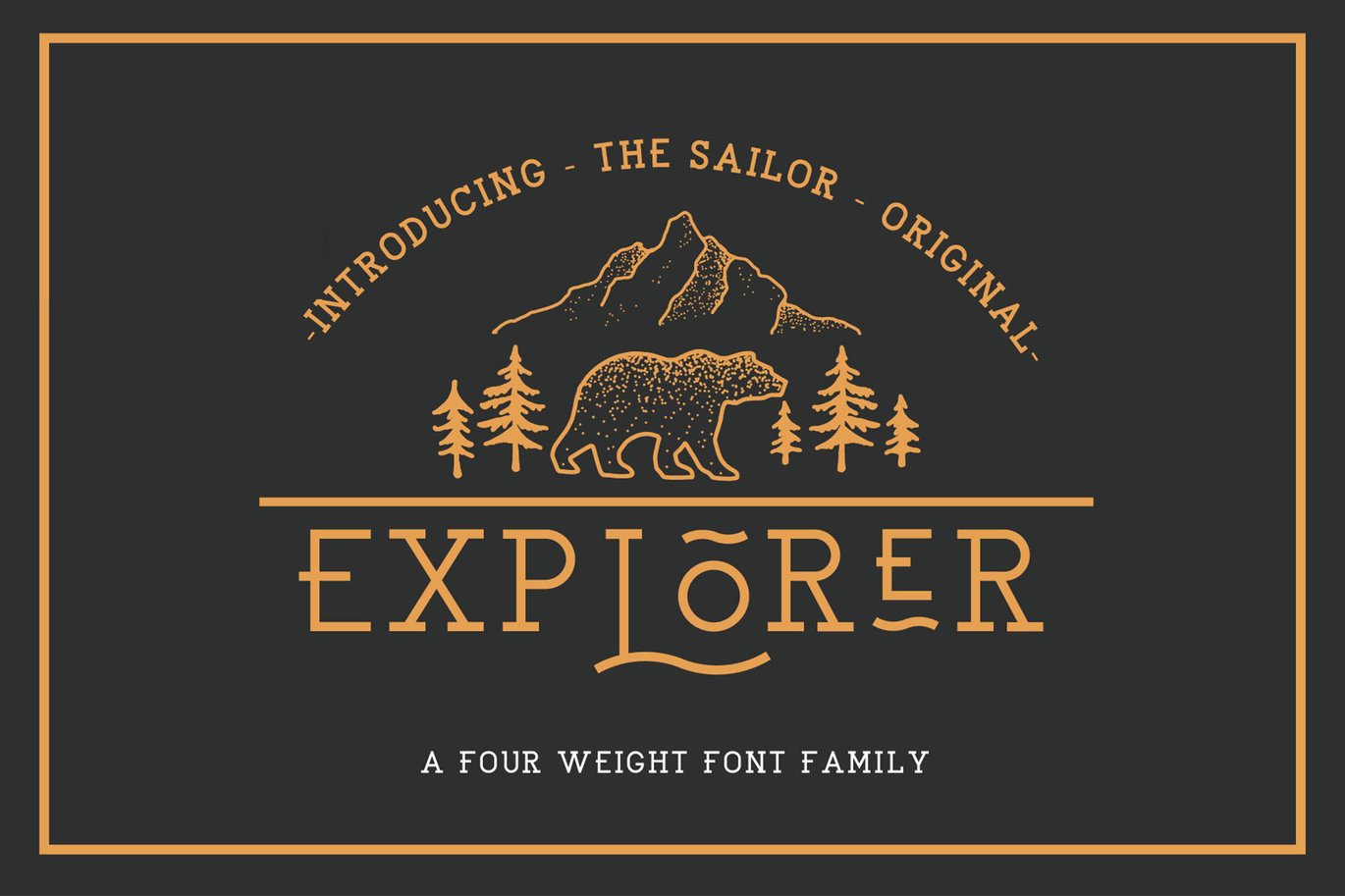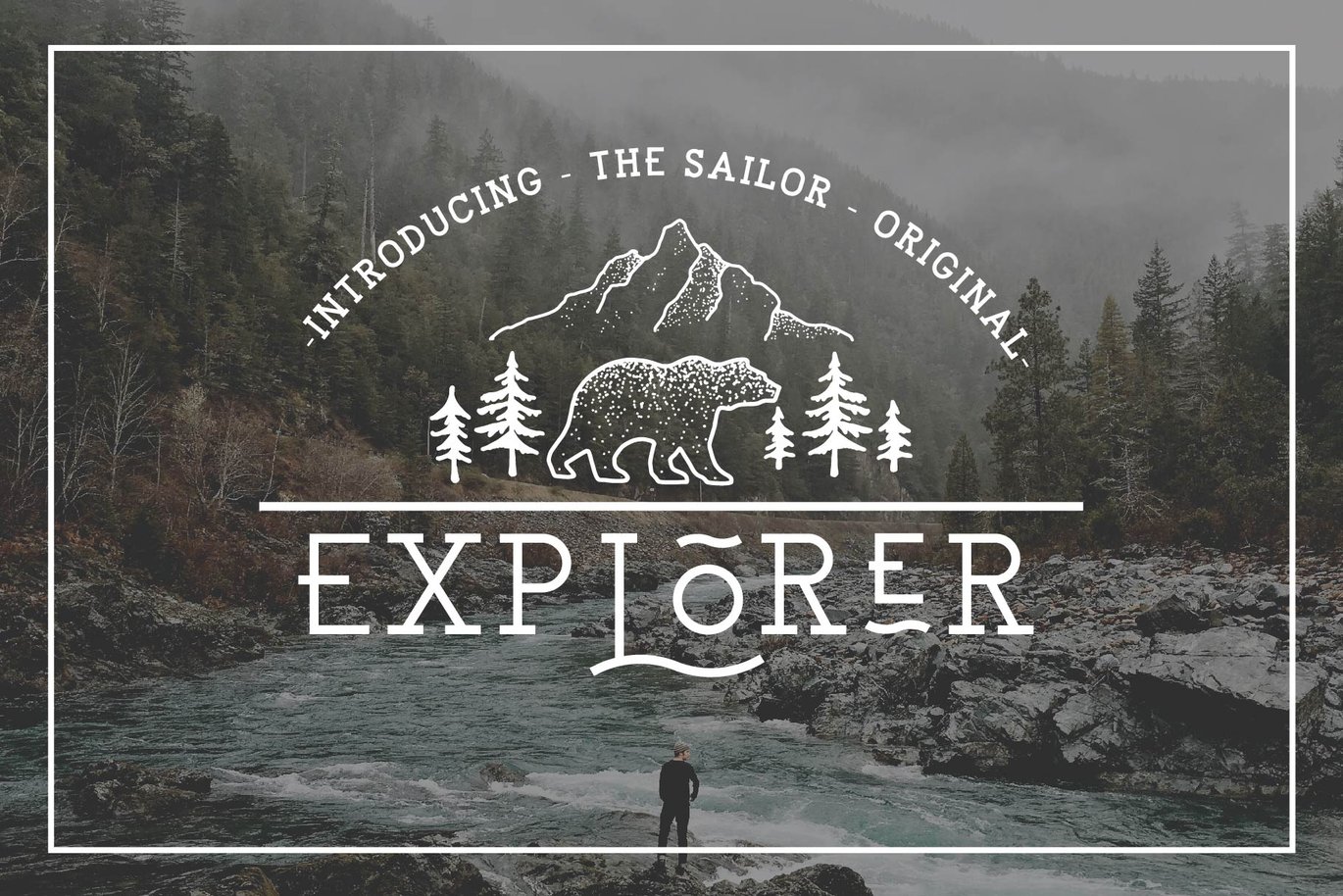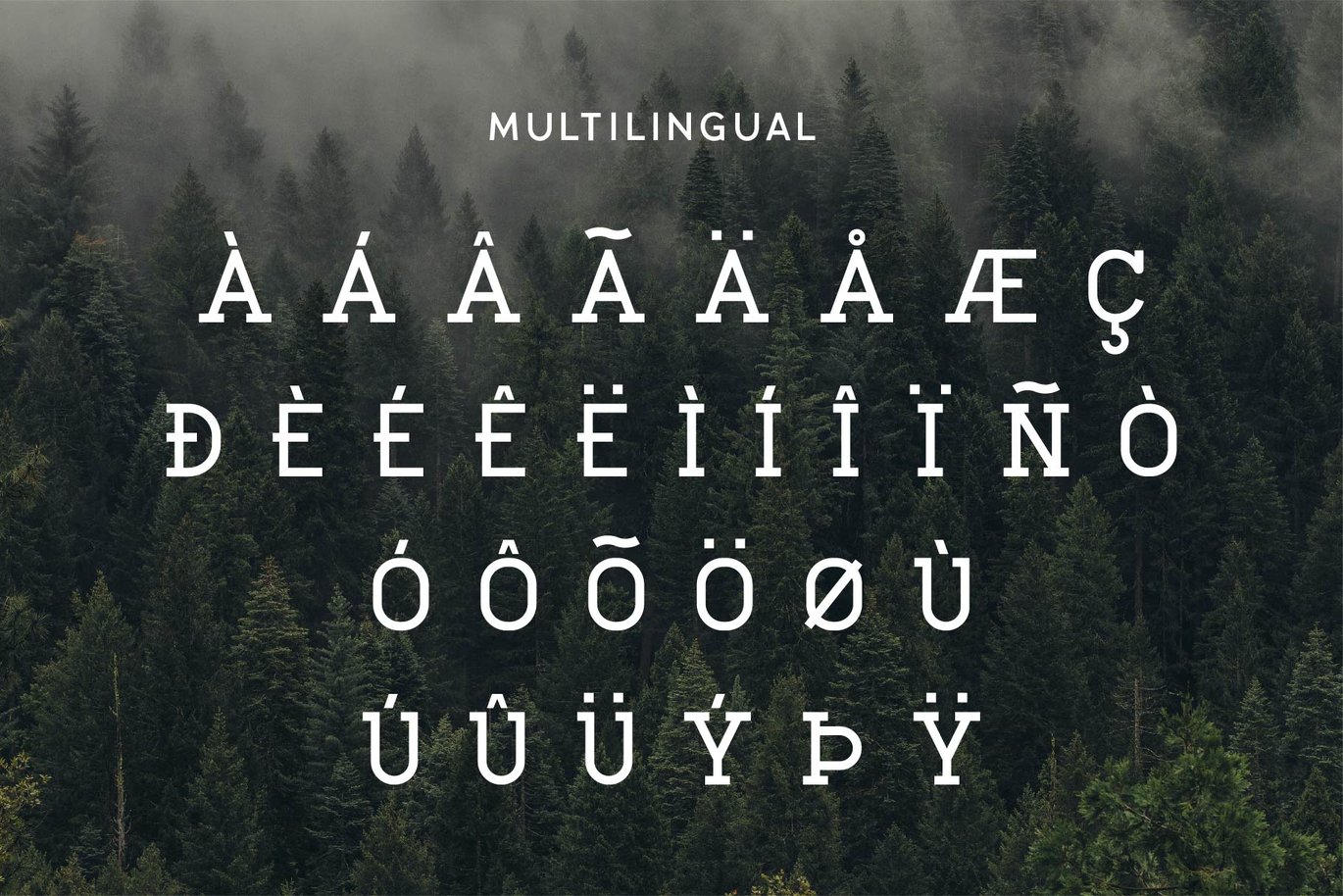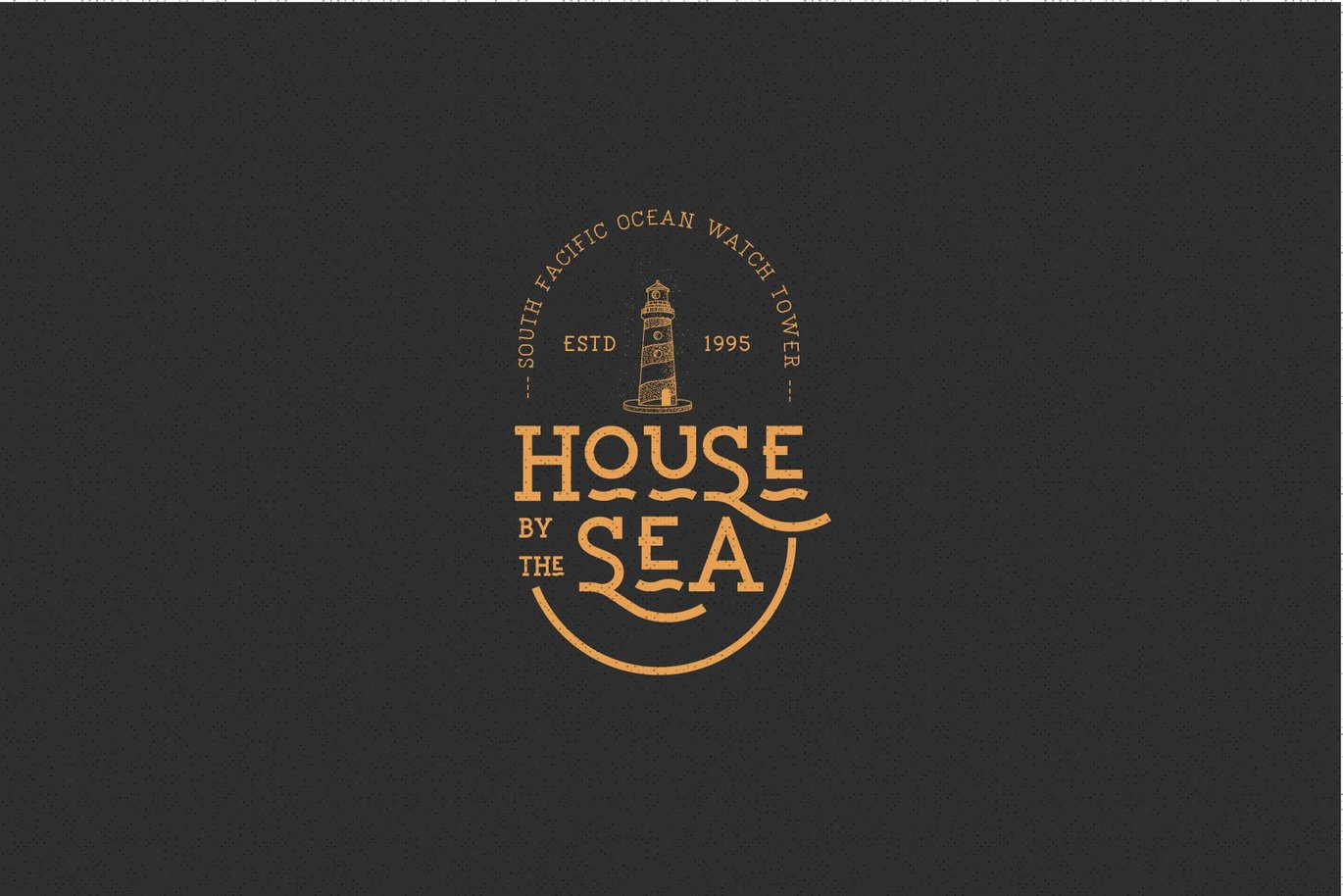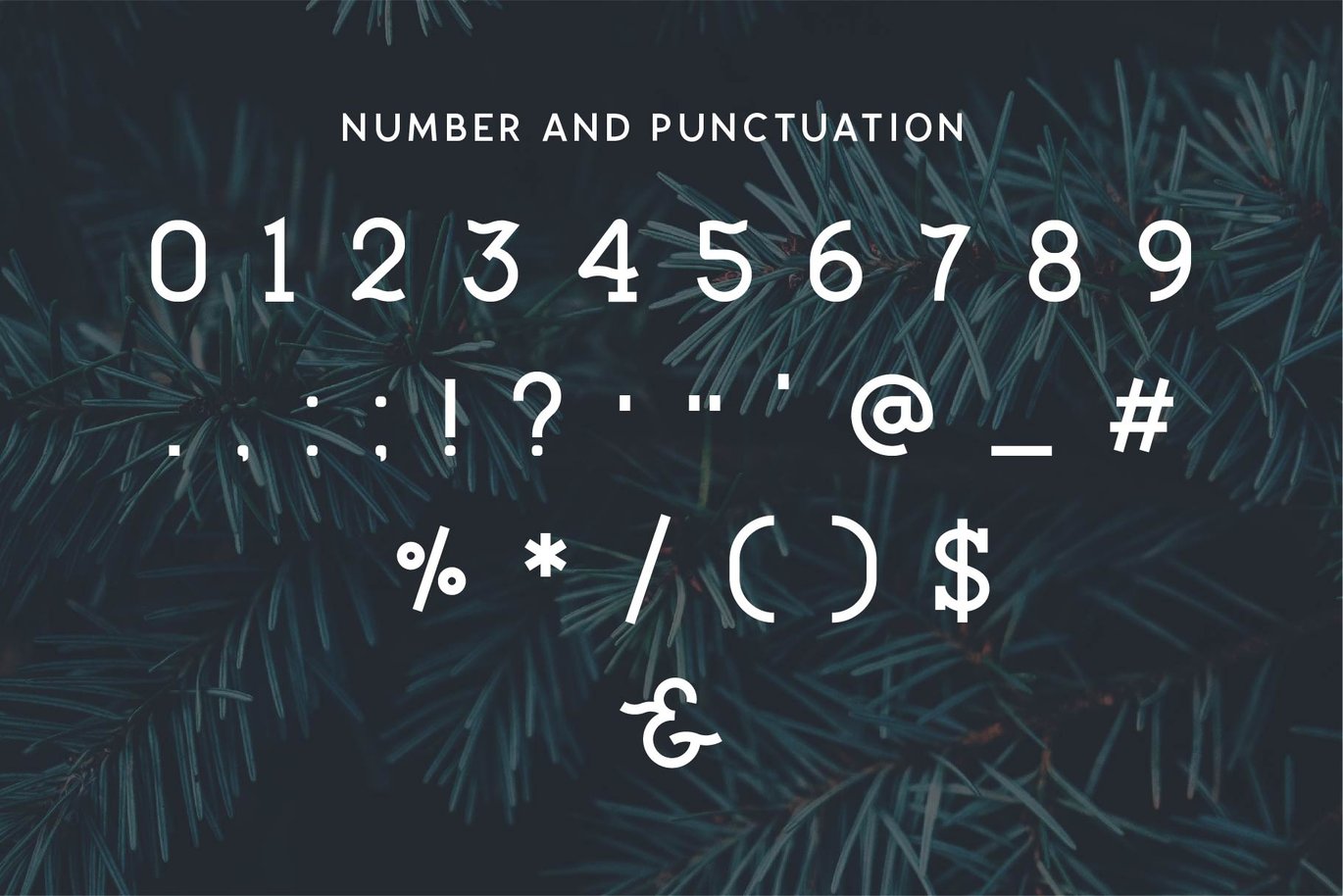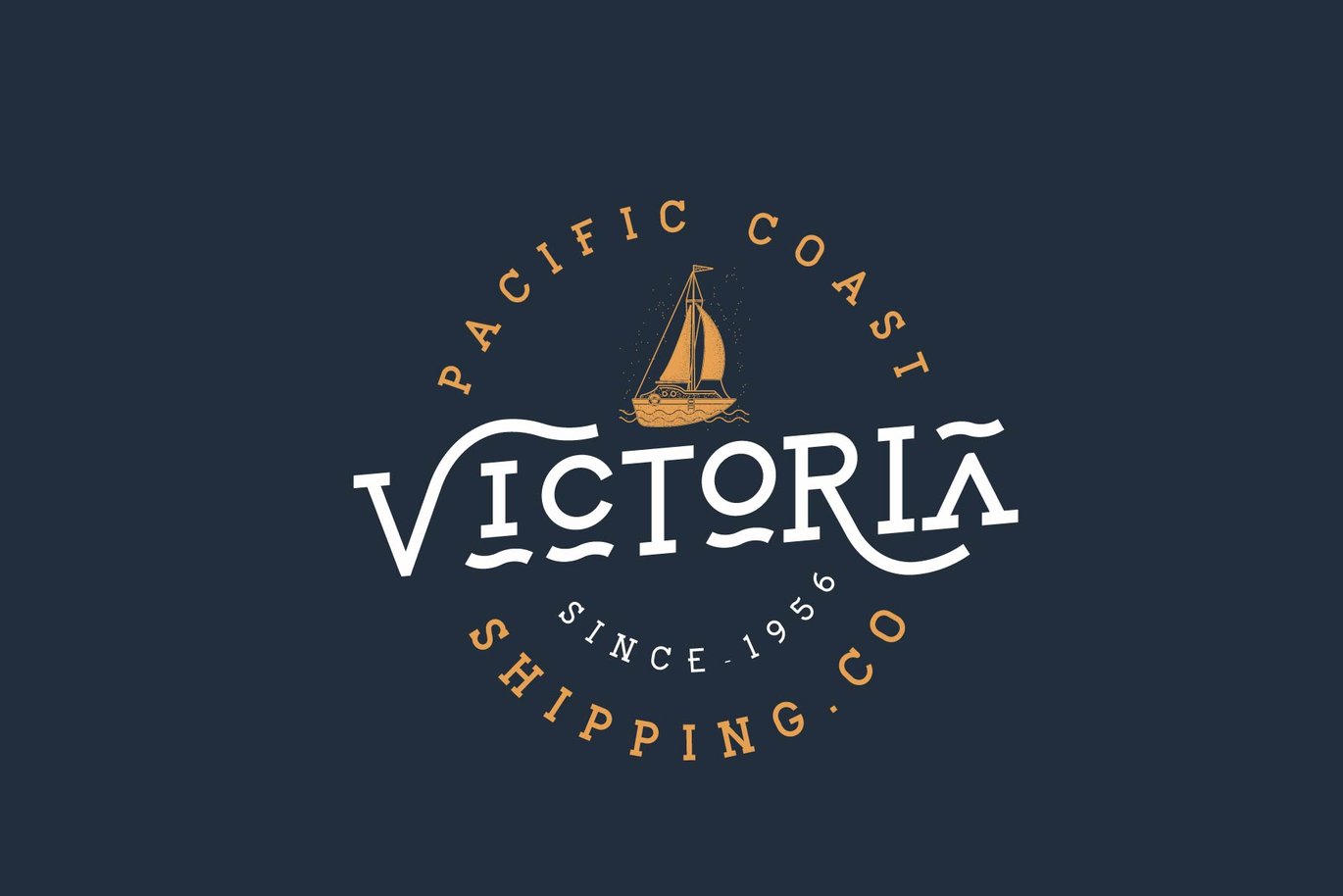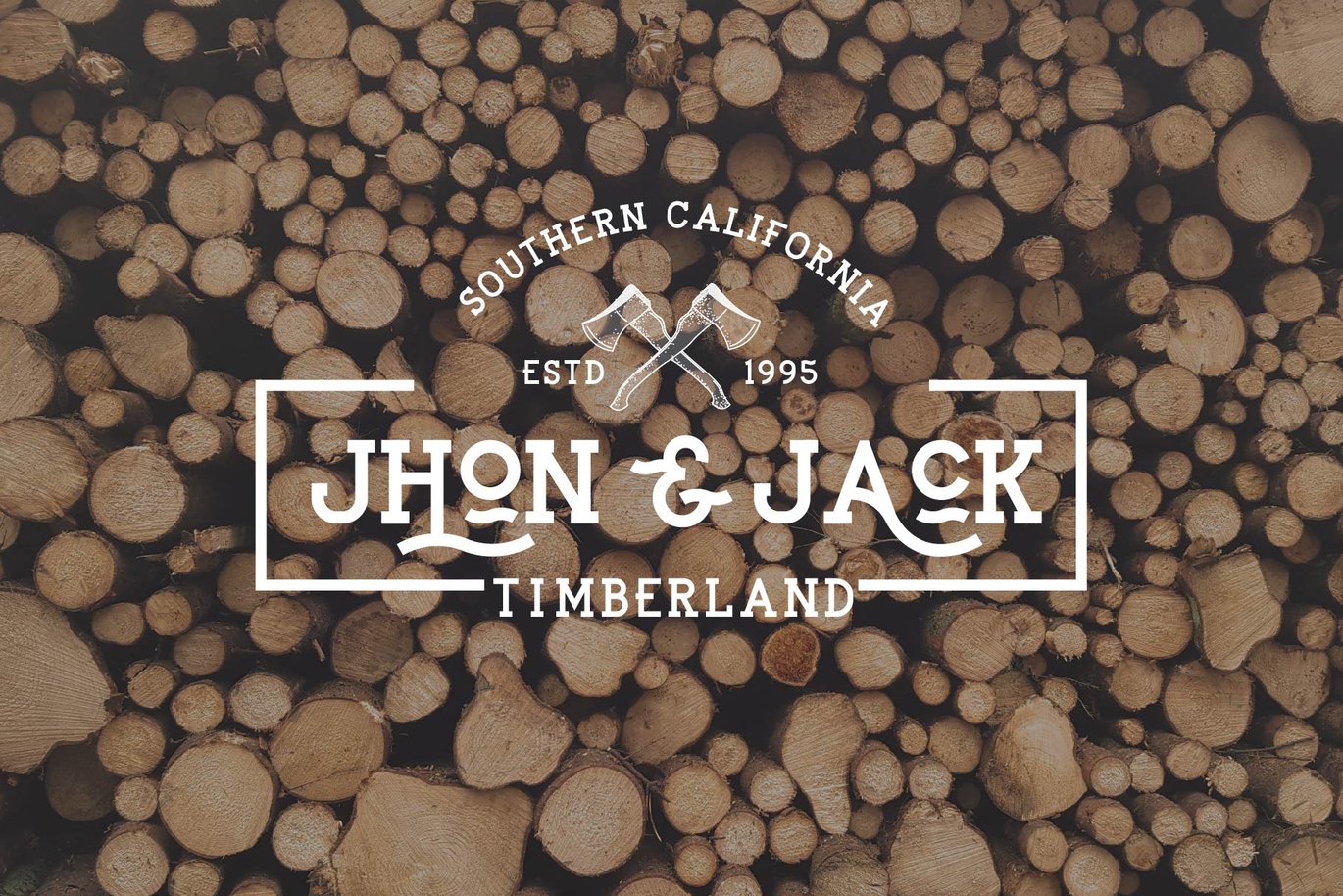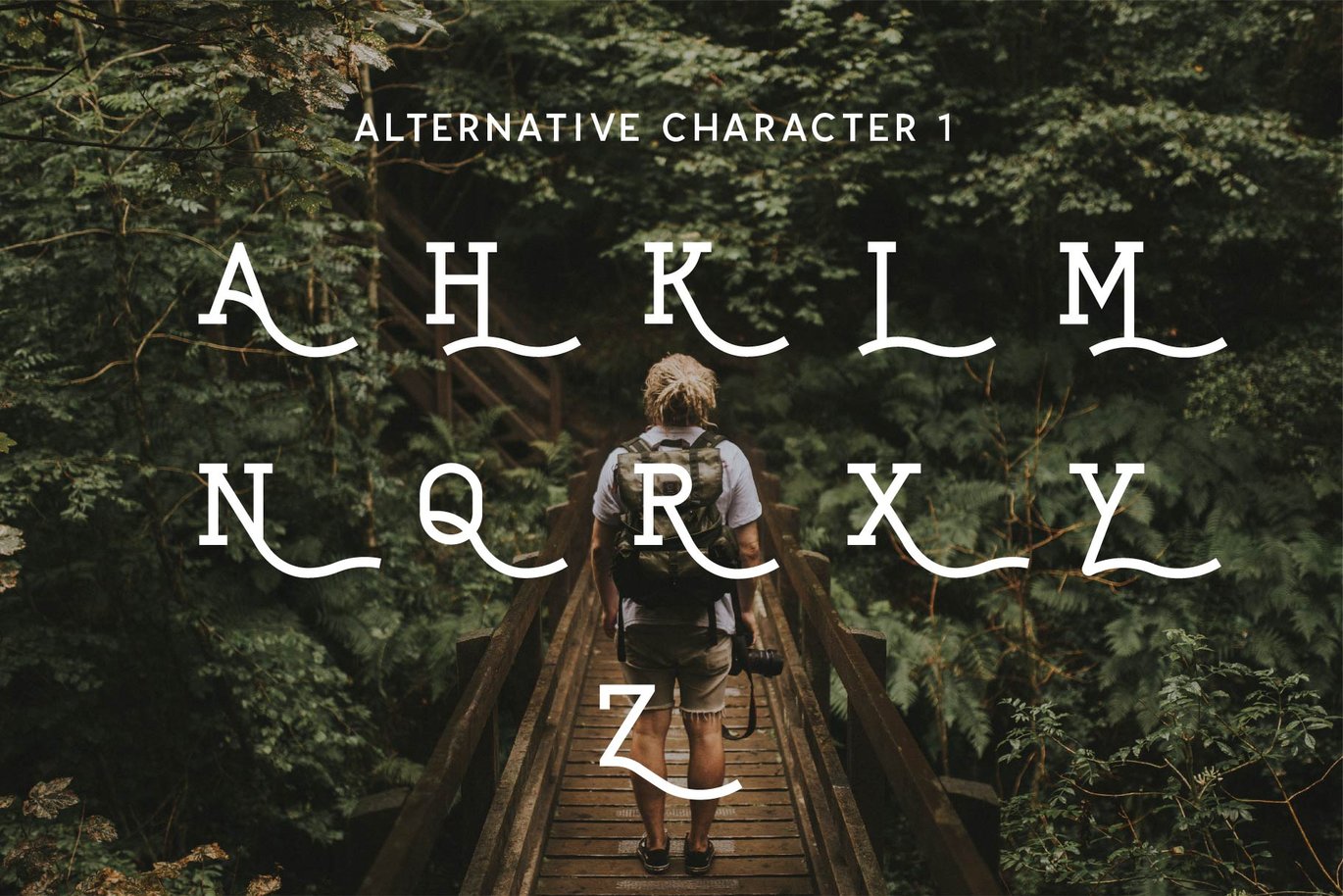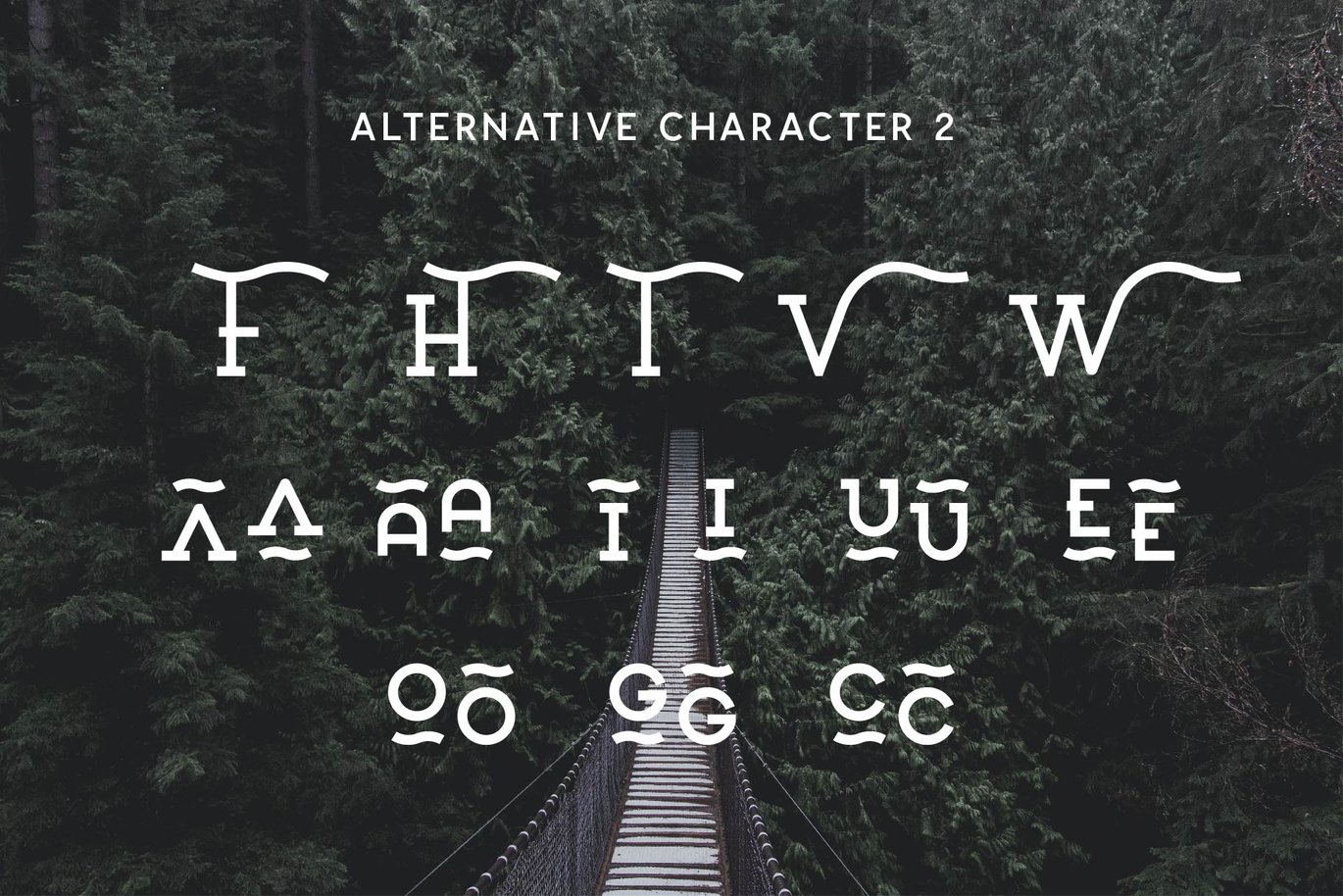
EXPLORER – Sailor Original Typeface
The Sailor Original Font Is a another version of the sailor font. This Original version comes with clean style, modern and simple with Four weight . Perfect for logo designs, headers and small amounts of text. It contains an uppercase alphabet with alternative character, numbers and symbols.
- Four weight
- Light
- Medium
- Bold
- Multiple Language supported